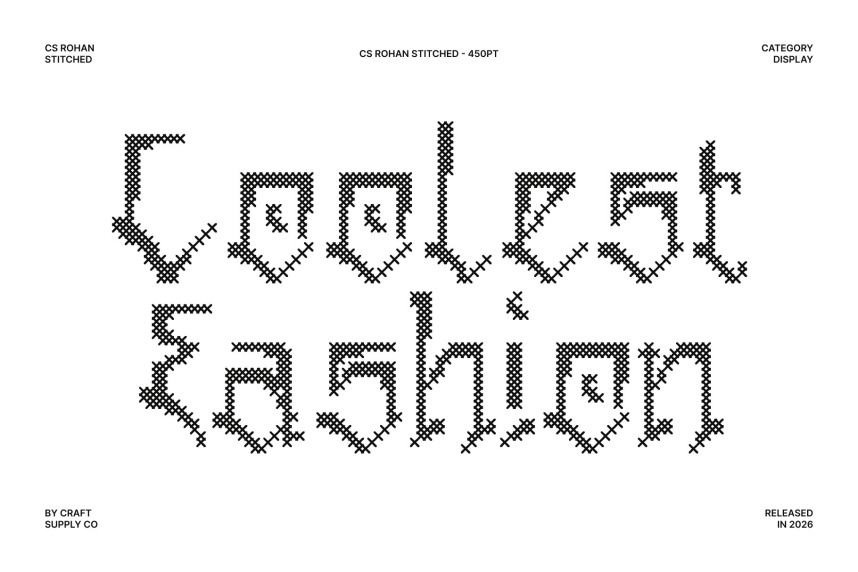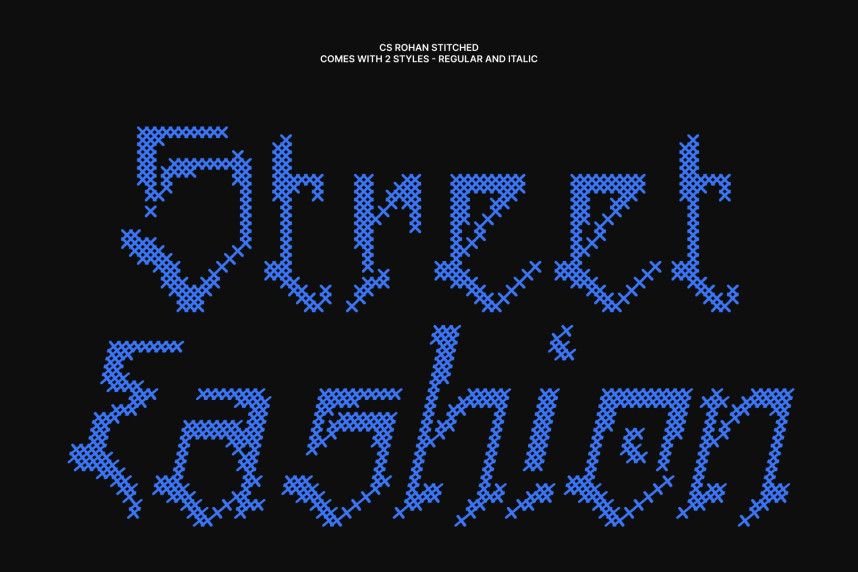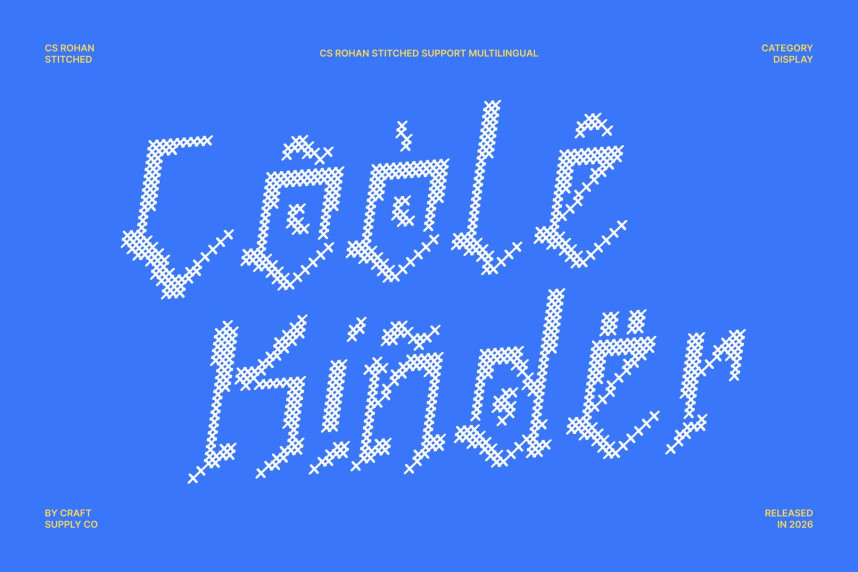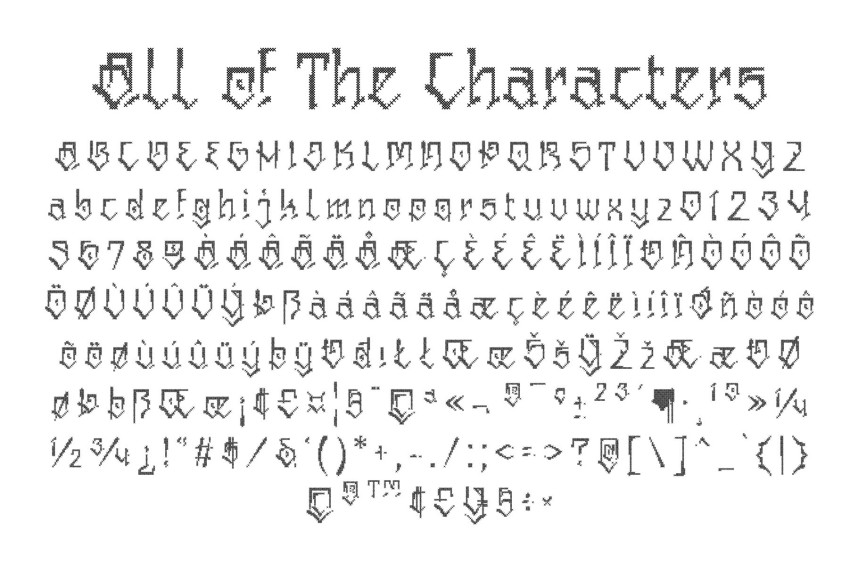
CS Rohan Stitched Font
CS Rohan Stitched Font – Chicano Graffiti Font
Bold, Funky, and Full of Urban Energy
This is a Chicano graffiti-inspired display font designed to capture the fearless spirit of street art and urban creativity. Its bold, heavy letterforms feature expressive curves, dramatic strokes, and intricate ornamental details that instantly command attention. Built to stand out, this font radiates rebellious energy, individuality, and artistic confidence, making it a perfect choice for designs that aim to feel vibrant and unapologetically expressive.